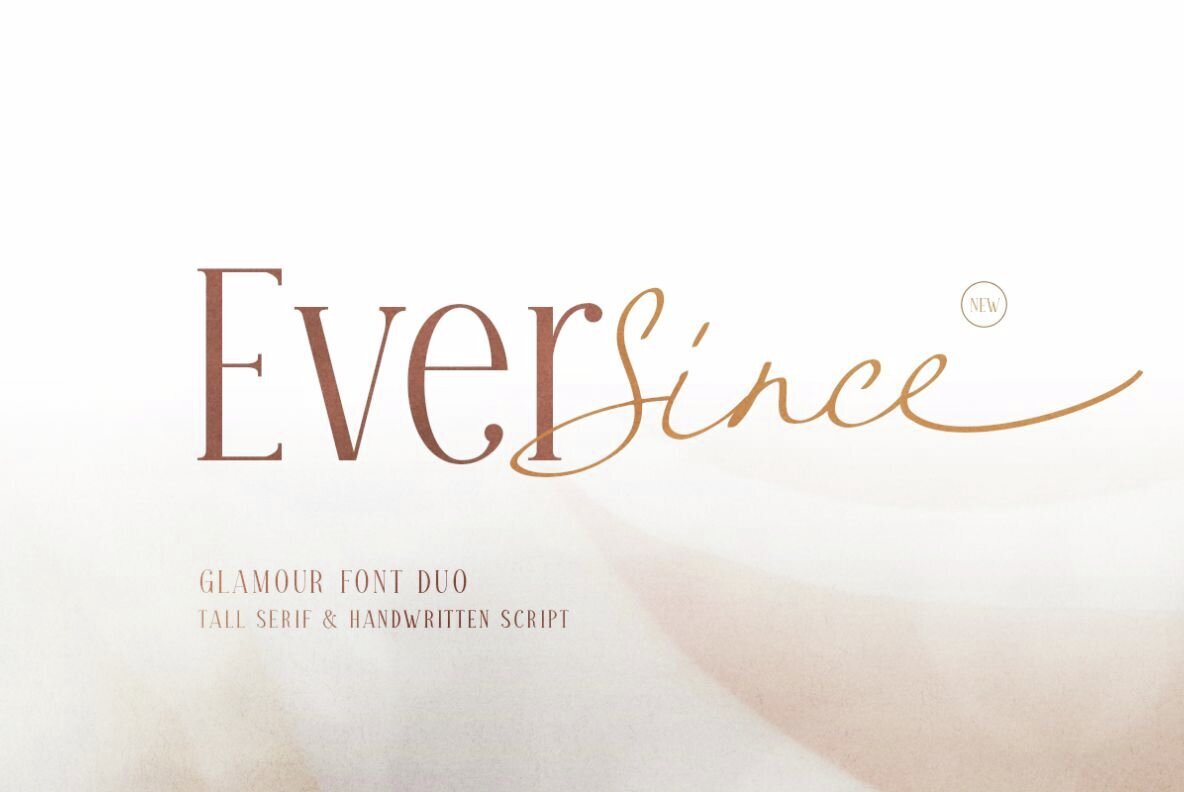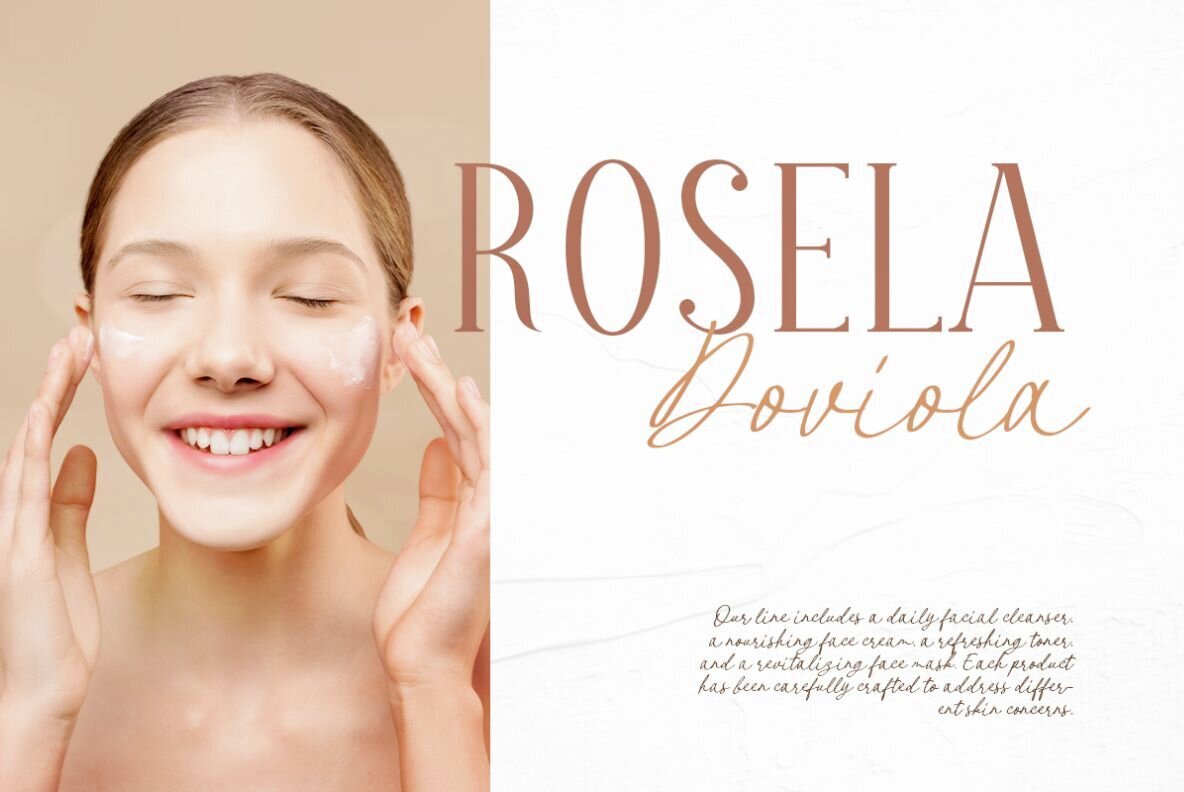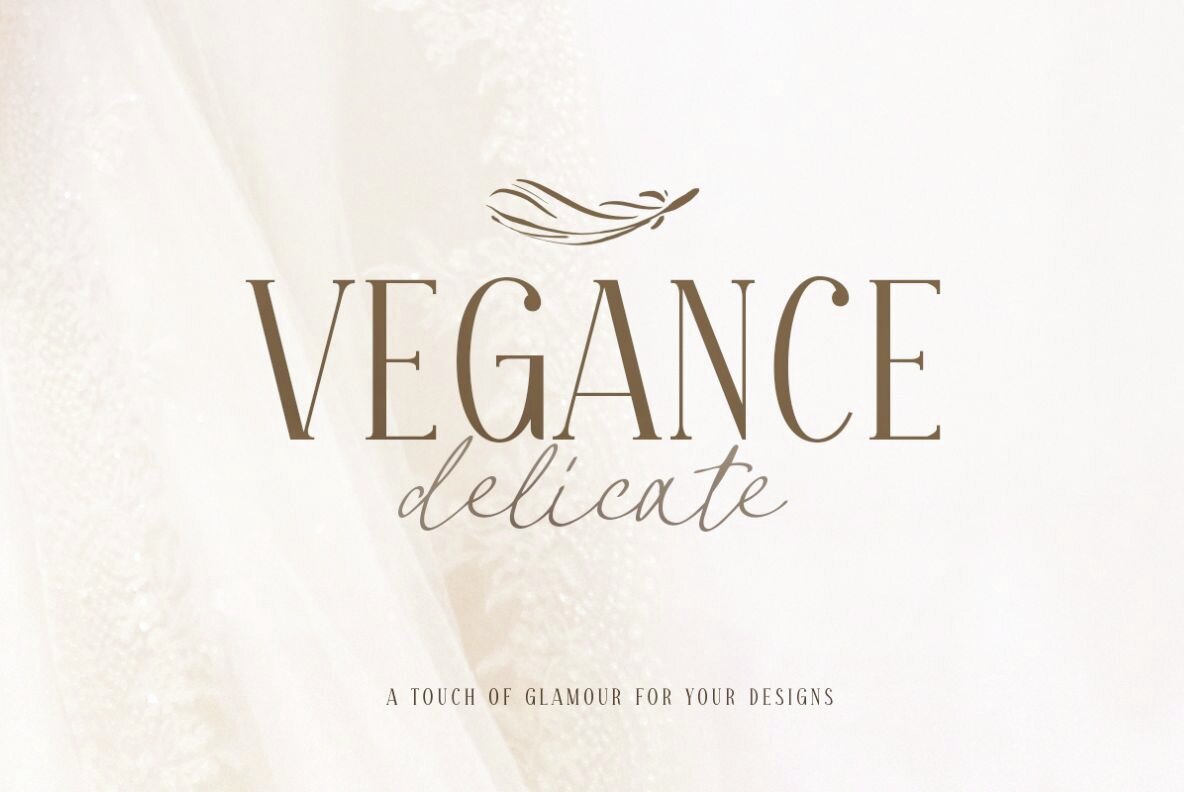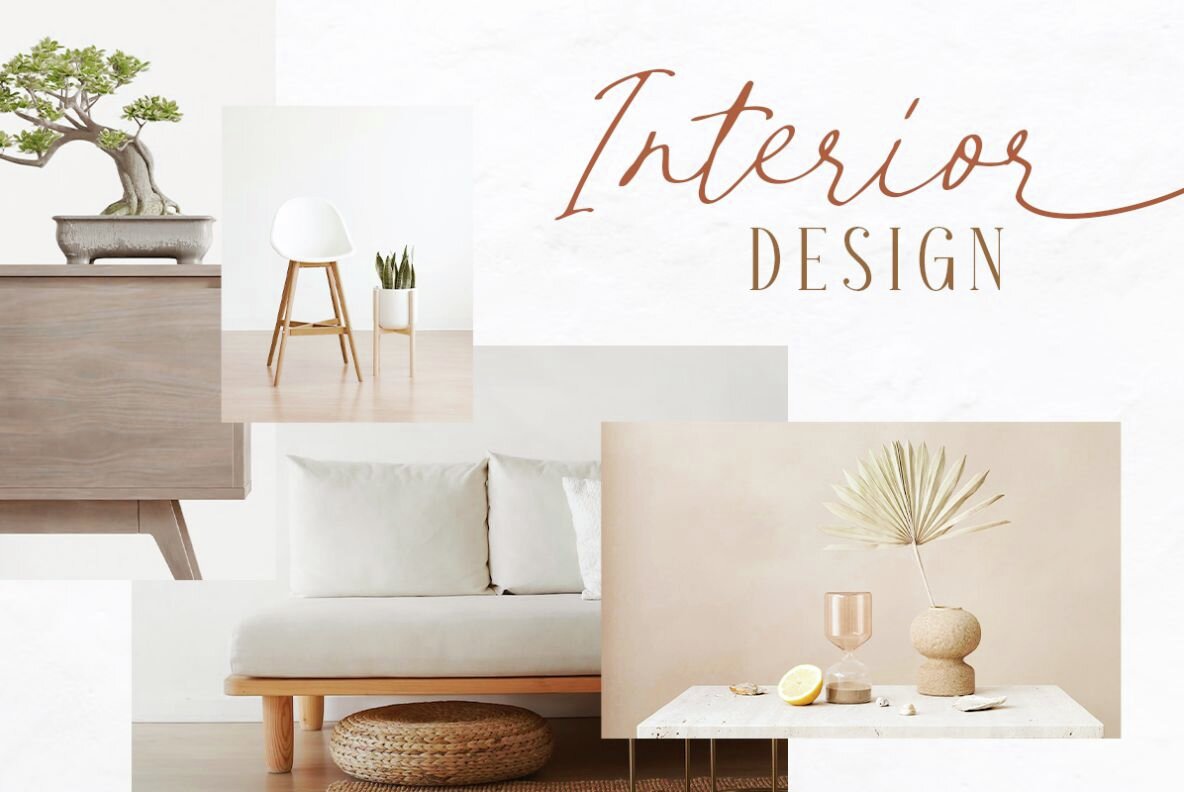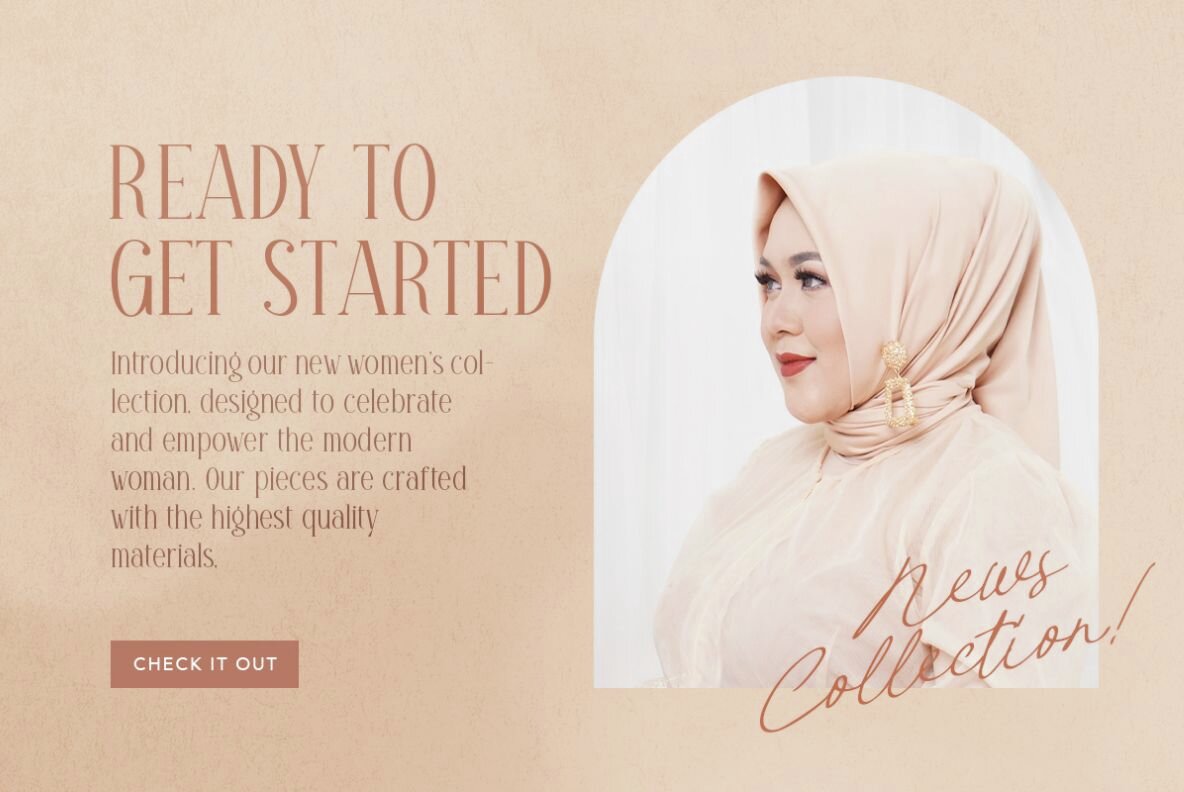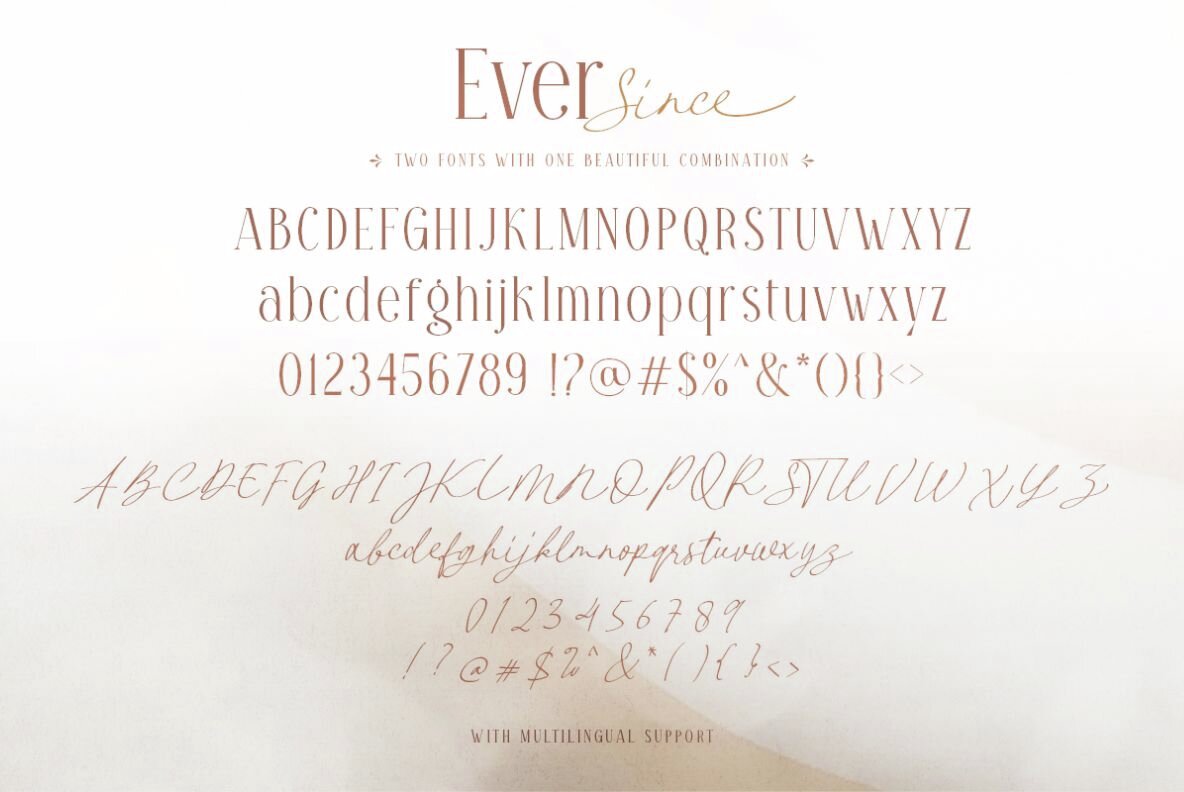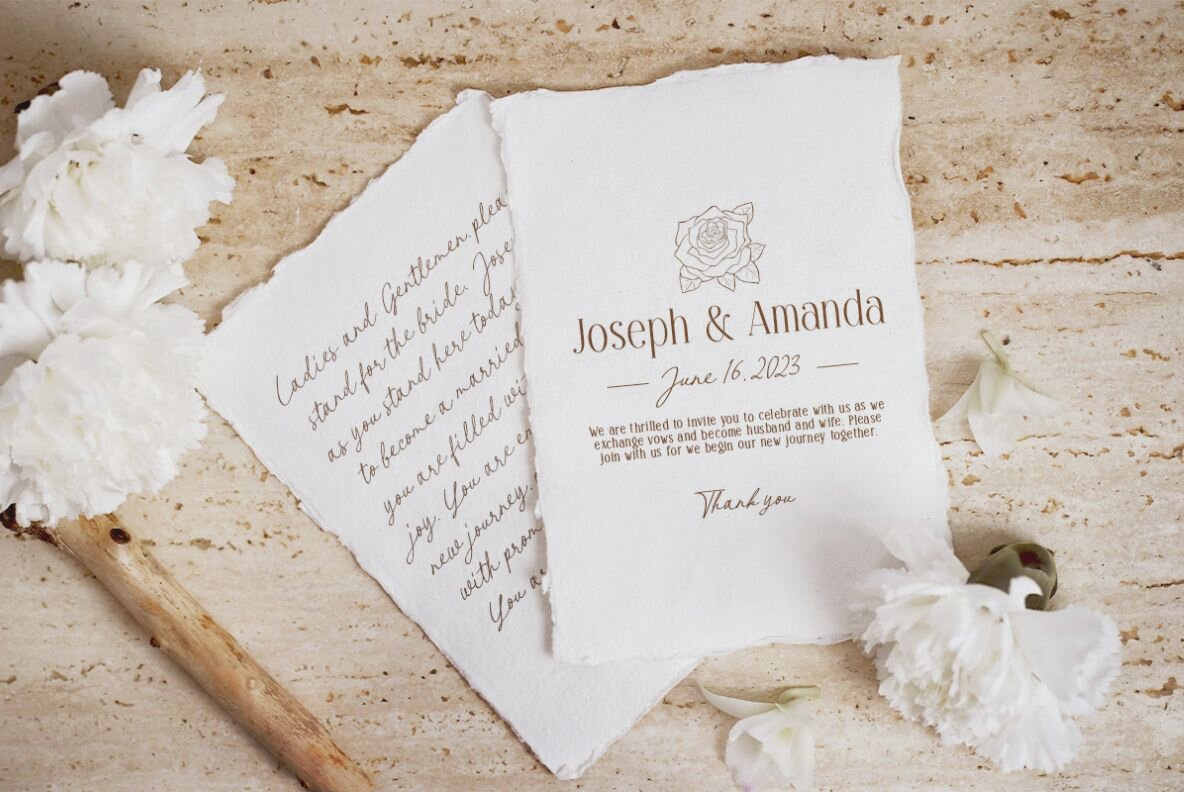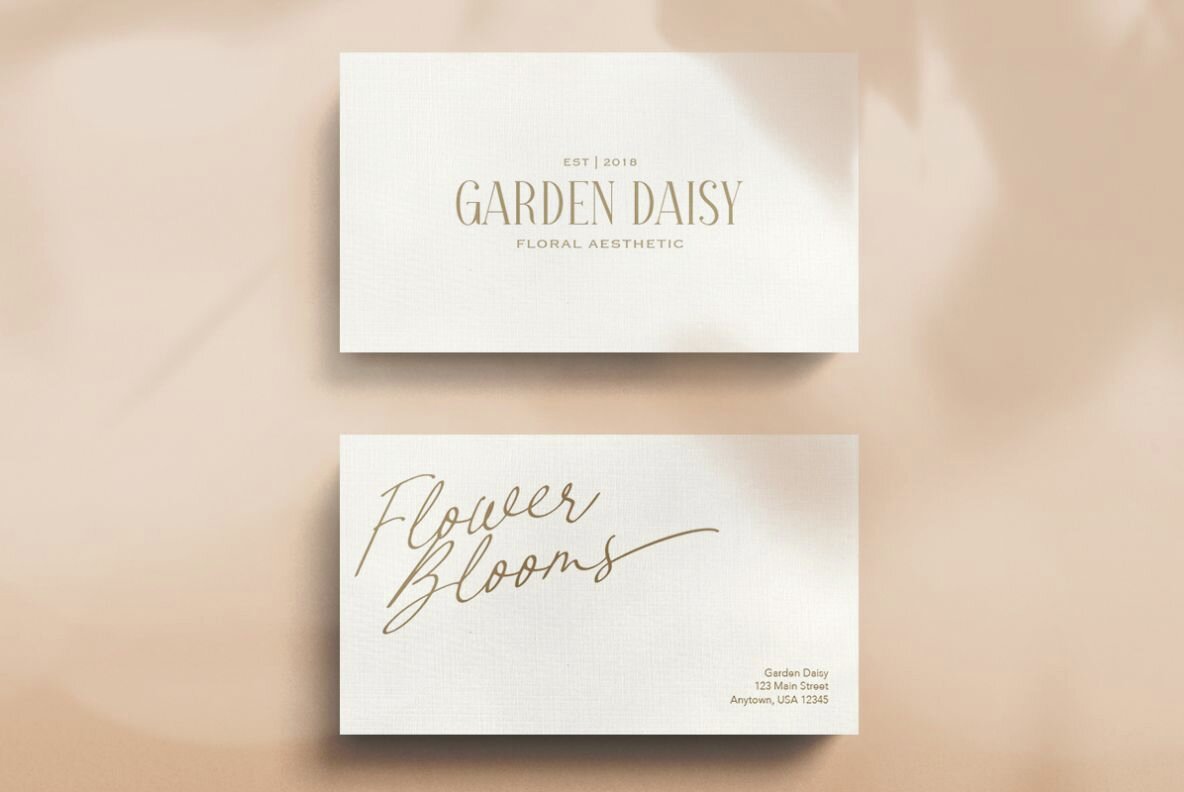
Ever Since Font
Ever Since Script
Ever Since Serif
Discover the charm of Ever Since – a sophisticated font duo featuring an elegant tall serif paired with authentic handwriting script. Perfect for a multitude of design applications, this versatile set complements branding projects, logos, and wedding invitations.Elegant Ever Since Font Duo